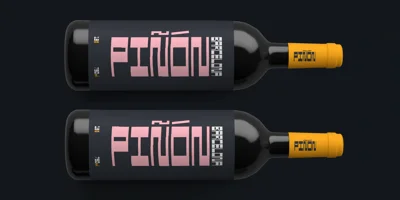
Broker Font
Broker Font is perfectly designed for financial institution branding, investment firm presentations, banking advertisements, corporate annual reports, professional business cards, stock market publications, insurance company materials, and executive-level communications requiring trustworthy sophistication.
Broker Font creates excitement through its authoritative presence and business-focused design that immediately conveys professionalism and financial expertise. This typeface commands attention with its balanced proportions and confident character structure, making it ideal for brands that need to establish credibility and trust in competitive financial markets.
Broker Font family encompasses comprehensive weight options including Light, Regular, Medium, Bold, and Black variations. Additional condensed styles and italic versions provide financial professionals with extensive typographic flexibility for creating sophisticated business communications that maintain hierarchy and visual impact.
The corporate excellence of Broker Font makes it indispensable for projects demanding financial industry credibility. This versatile typeface seamlessly combines modern design principles with traditional business aesthetics, delivering exceptional performance in both digital platforms and printed materials where professional appearance directly impacts client confidence.
Financial professionals consistently select Broker Font for communications requiring institutional authority. Its clean geometry and professional character make it perfect for banks, investment firms, accounting practices, and financial services where trust and reliability are fundamental to business success. The font's versatile nature ensures strong performance across all business applications.
Establish financial authority with Broker Font and experience how this exceptional typeface brings institutional credibility and professional sophistication to every project, creating powerful business communications that build client confidence and demonstrate expertise in today's competitive financial landscape.